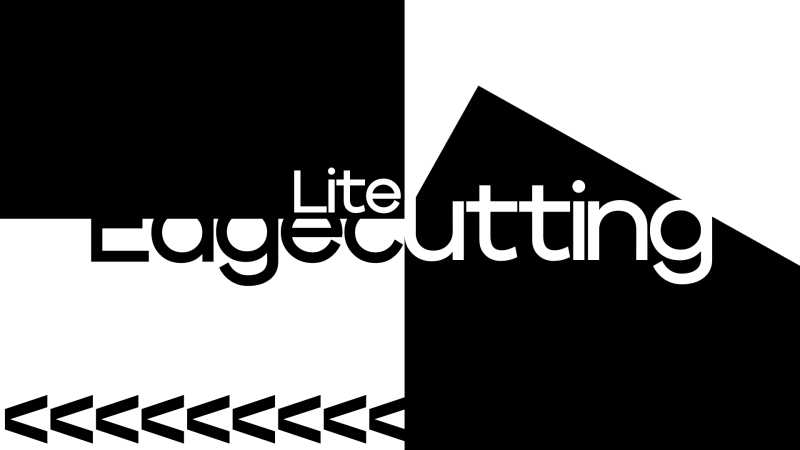
Edgecutting is a geometric sans-serif typeface, which is heavily inspired by the "Aventa" font family. 'Edgecutting' is COMPLETELY FREE for personal and commercial use. You can check out the licence in the folder for more information. If you want to donate, please send it to my Paypal account through the link below (or simply just send it through my email address "rmforbusiness@gmail.com"): https://paypal.me/randommaerks |